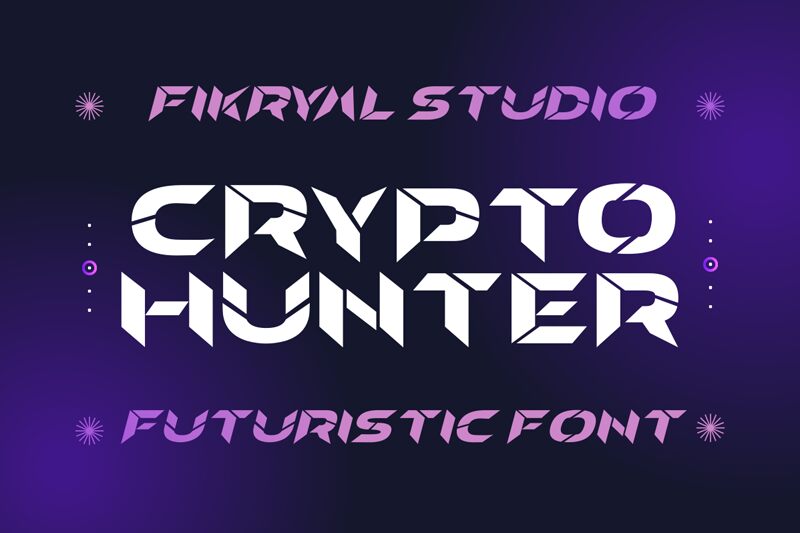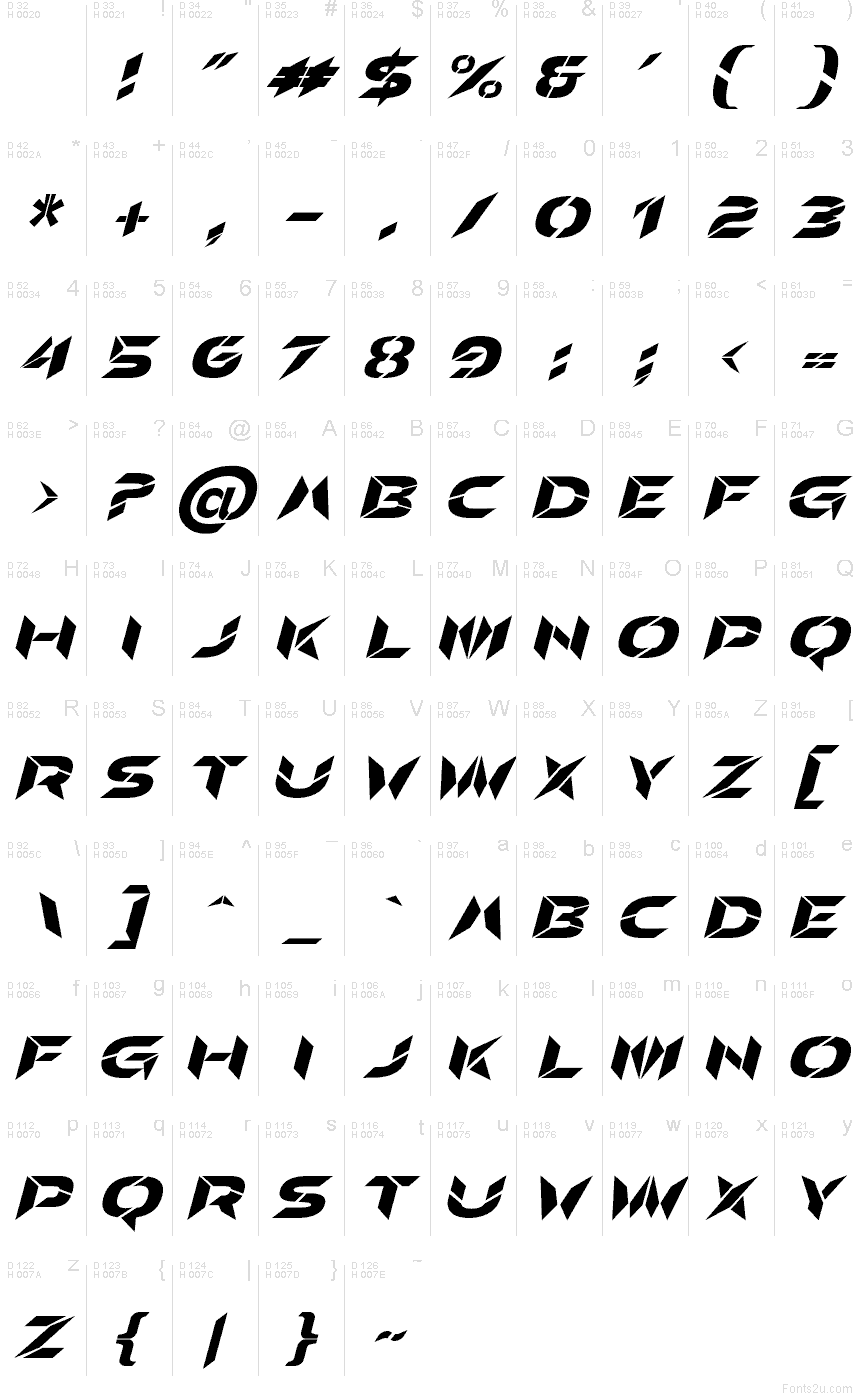
Crypto Hunter Slant Italic
Crypto Hunter Slant Italic font by Fikryal studio is a free futuristic display typeface that looks like it’s been cut from metal and pushed into hyperdrive. Its sharp, faceted strokes and aggressive forward slant create a sense of speed and tension, like a logo frozen mid-explosion. Heavy black shapes interlock tightly, giving every word a dense, high-energy silhouette that commands attention on any dark or neon background.
Using Crypto Hunter Slant Italic, you can brand gaming channels, esports teams, crypto projects, sci‑fi posters, tech event banners, and bold YouTube thumbnails with the same intense, cyber‑charged voice. The rhythm of the angled forms keeps short titles punchy and memorable, especially at large sizes. For supporting text, pair this free font with a simple, clean geometric sans-serif to let Crypto Hunter handle the attitude while the secondary type keeps things readable.